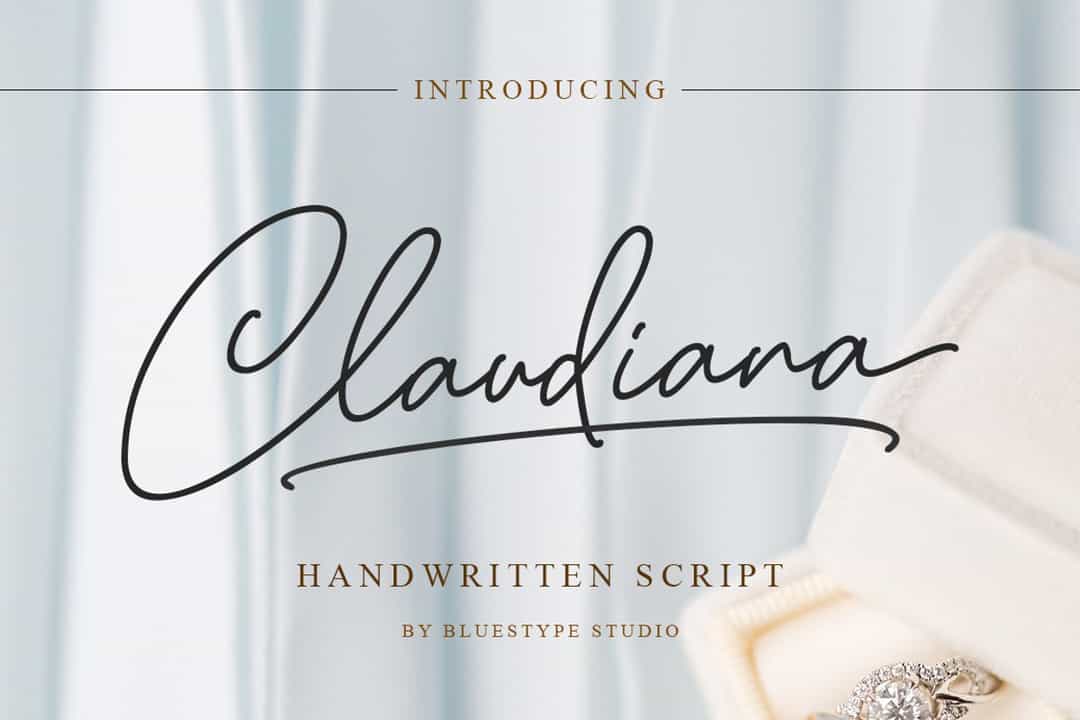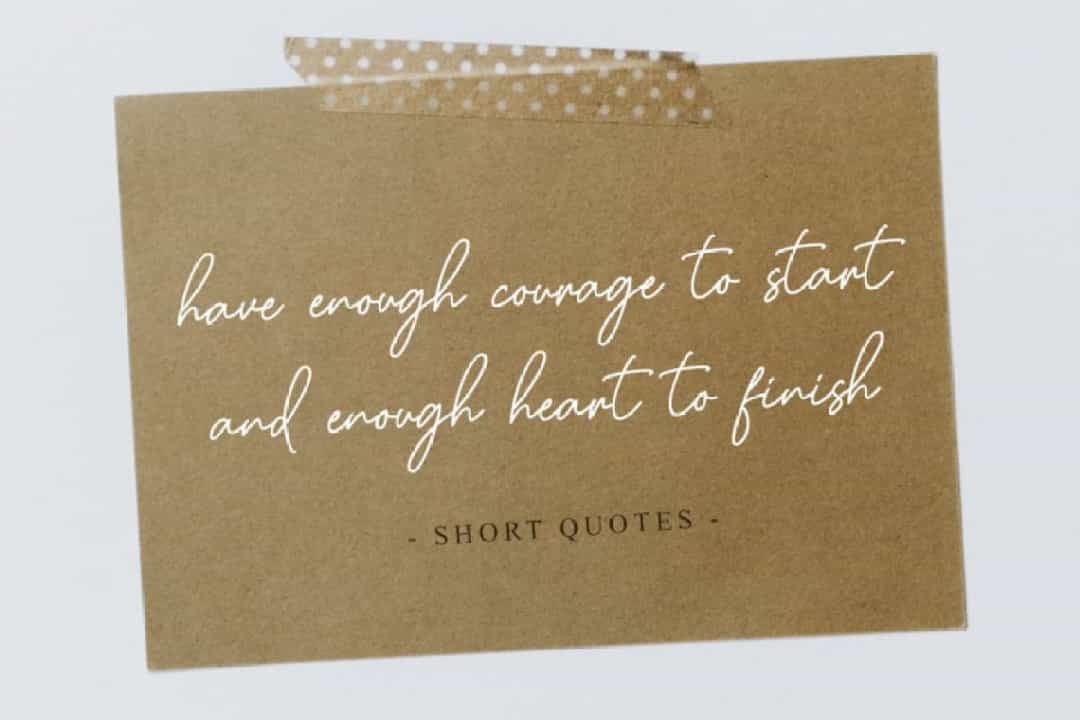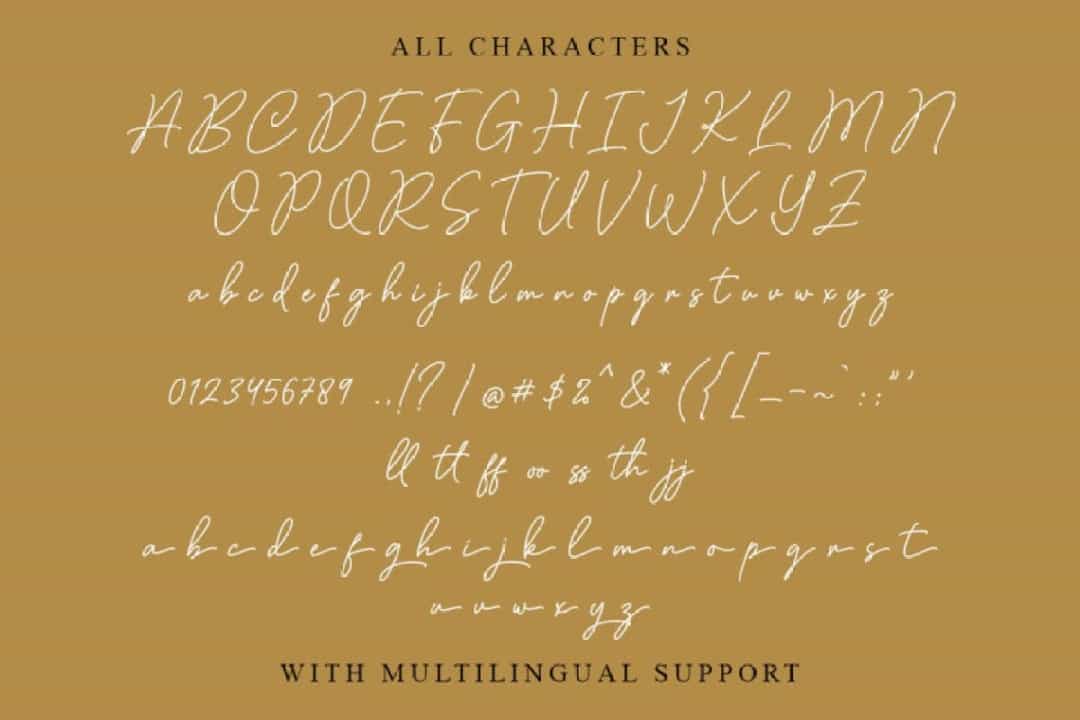
Claudiana is a versatile font type that will suit all your typography requirements and will let you work magic with hand lettering effortlessly. Claudiana is perfect for logos, business cards and wedding invitations; wedding programs; t-shirts and logos. Also it is perfect for books magazines quotes invitations fashion watermarks signatures packaging etc.